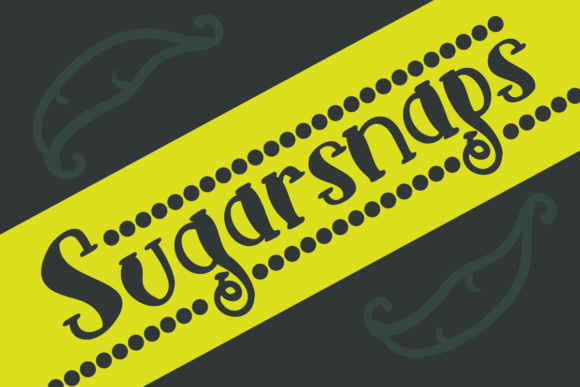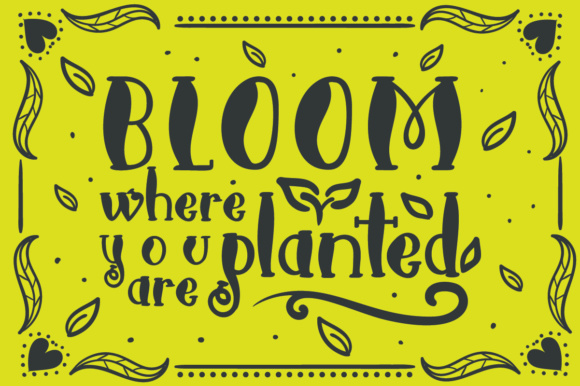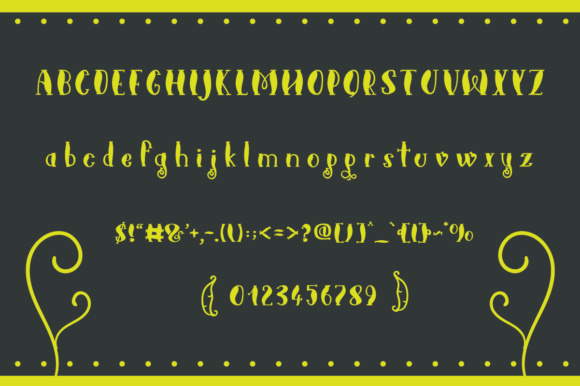
Sugarsnaps Font
About Sugarsnaps Font
Sugarsnaps is a decorative handwritten display font. It features playful, wobbly letters that flow on your screen.
Even though it’s very playful, giving a fun twist to your work, it’s designed to stay very legible, making it perfect to use for kid-themed projects.